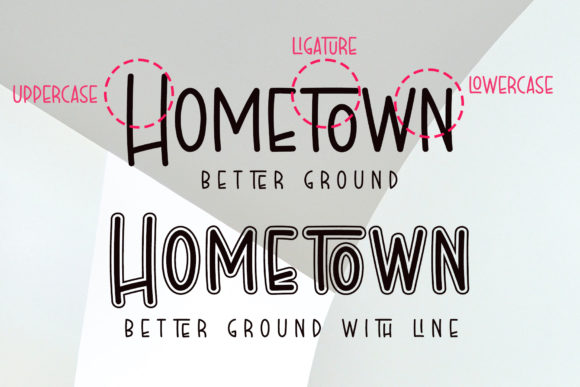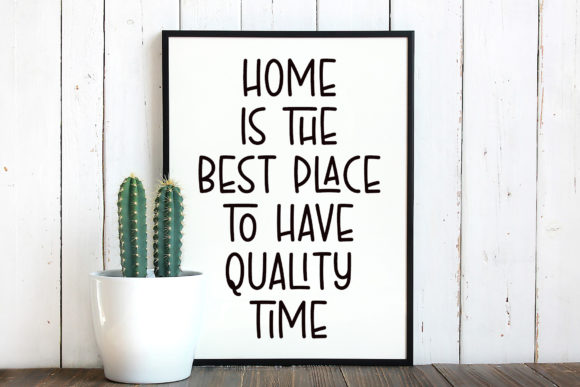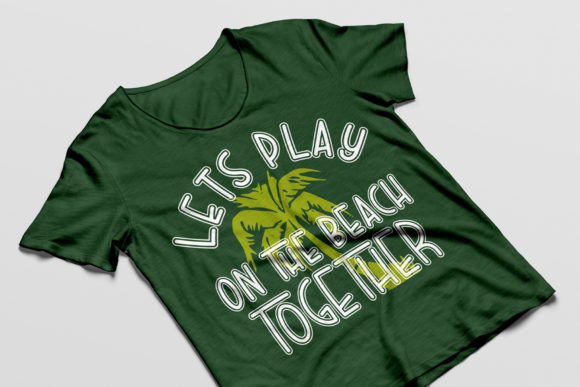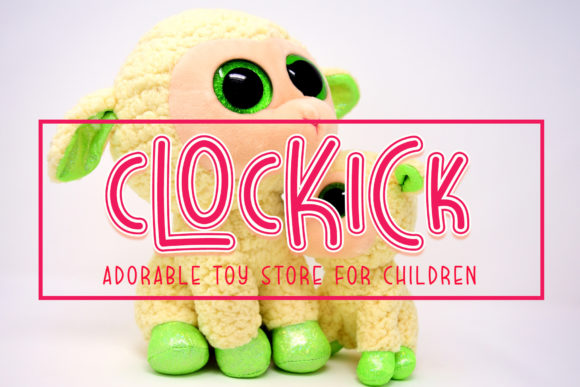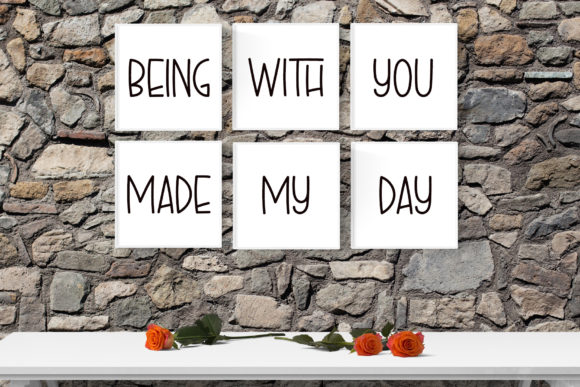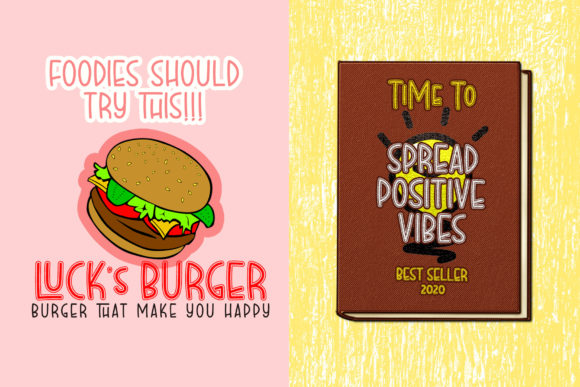
Better Ground Font: Elevate Your Design with Elegance and Simplicity
In the world of typography, the right font can make all the difference in transforming a design from ordinary to extraordinary. For designers and crafters seeking a clean, tiny, and skinny handwritten font, Better Ground is an exceptional choice. This font’s simplicity and elegance can elevate your design, making it look fabulous and sophisticated. In this article, we’ll explore the features and benefits of Better Ground Font, and how it can become your go-to typography solution.
The Characteristics of Better Ground Font
Better Ground Font is distinguished by its clean, tiny, and skinny handwritten style. Its slender lines and minimalist approach give it a unique charm that can add a touch of elegance to any design project. Whether you’re working on a logo, a branding project, or a craft, Better Ground’s simplicity ensures that your design remains uncluttered and focused.
Advantages of Using Better Ground Font
There are several advantages to incorporating Better Ground Font into your design projects:
- Elegance and Sophistication: The clean and skinny lines of Better Ground Font lend an air of elegance and sophistication to your designs, making them stand out.
- Versatility: Due to its simple and unassuming nature, Better Ground Font can be used across a wide range of design projects, from logos and branding to digital and print media.
- Readability: Despite its tiny size, Better Ground Font maintains excellent readability, ensuring that your message is conveyed clearly and effectively.
- Uniqueness: In a sea of bold and heavy fonts, Better Ground offers a refreshing change with its delicate and subtle appearance, making your designs memorable.
Who Can Benefit from Better Ground Font?
Better Ground Font is a versatile typography solution that can benefit a wide range of professionals and creatives:
- Graphic Designers: Looking for a font that adds elegance and sophistication to their designs.
- Branding Experts: Seeking a unique and memorable typography solution for their brand identity projects.
- Crafters and Makers: Needing a clean and simple font for their DIY projects, such as crafting, scrapbooking, and card making.
- Digital Artists: Exploring new typography options for their digital art and illustrations.
How to Use Better Ground Font Effectively
To maximize the impact of Better Ground Font, consider the following tips:
- Pair with Contrasting Fonts: Combine Better Ground Font with bolder or more decorative fonts to create visual interest and hierarchy.
- Experiment with Colors: Play with different colors to find the perfect match that enhances the elegance of Better Ground Font.
- Adjust Size and Spacing: Don’t be afraid to experiment with different sizes and spacing to achieve the desired effect.
- Use for Headings and Accents: Utilize Better Ground Font for headings, titles, and accents to add a touch of sophistication to your designs.
Better Ground Font is a clean, tiny, and skinny handwritten font that offers a unique blend of elegance and simplicity. Its versatility, readability, and distinctive appearance make it an excellent choice for designers and crafters looking to elevate their design projects. By incorporating Better Ground Font into your typography arsenal, you’ll be able to create designs that are not only visually appealing but also memorable and impactful. Whether you’re working on a branding project, a digital design, or a craft, Better Ground Font is sure to become your go-to typography solution for adding a touch of sophistication and elegance.